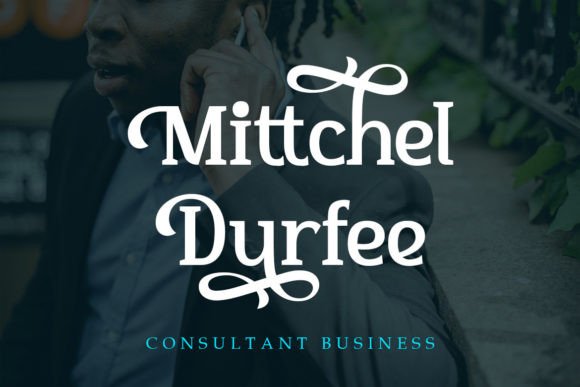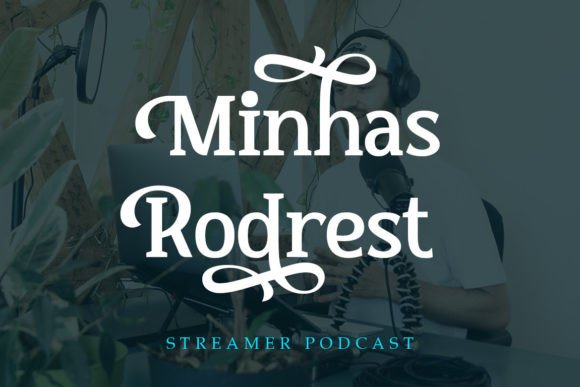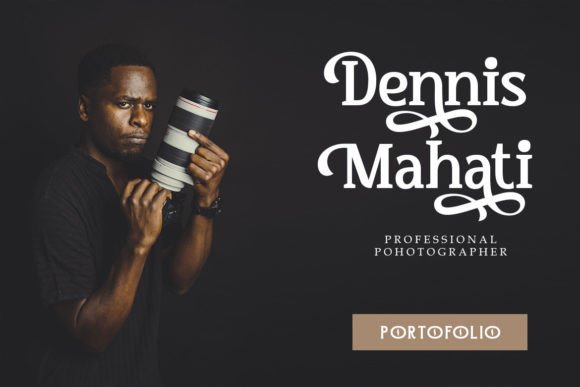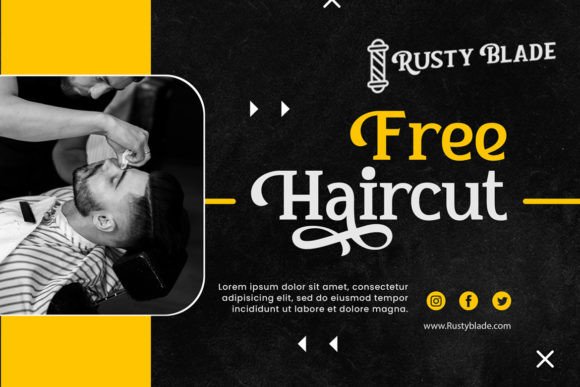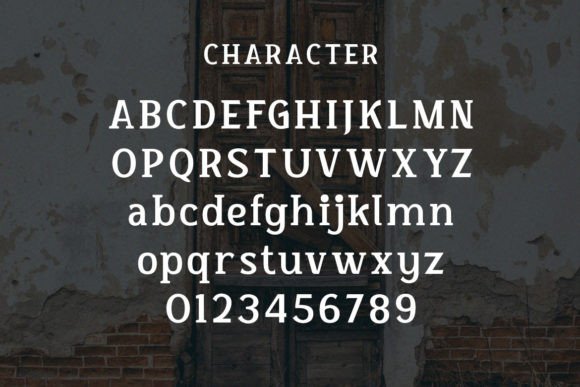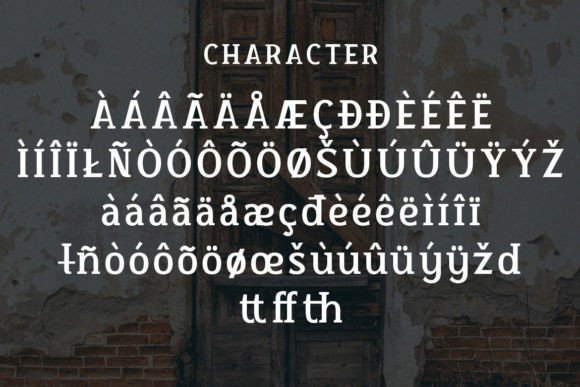
Introduction to Rubish Font
Have you ever been working on a creative project, pouring your heart and soul into every detail, only to be stuck on finding the perfect font to bring it all together? It’s a moment we’ve all experienced at some point, and it’s frustrating to say the least. But what if I told you that there’s a font that could solve that problem for you? Enter the elegant and rounded slab serif typeface, Rubish Font.
This high-quality design resource is perfect for a variety of contexts, from designing labels for perfumes and cosmetics to creating magazine covers, posters, manifests, and flyers. Its versatility and sophistication make it a valuable asset for any designer looking to elevate their creative project.
Key Features of Rubish Font
- High-quality design resource ideal for creative projects, including logos, graphics, and more.
- Unique, playful font style with a transparent background, allowing for versatility and customization.
- Includes a comprehensive set of characters, including uppercase and lowercase letters, numbers, and punctuation marks.
- Comes in a single weight, making it easy to use and integrate into your design workflow.
Honest Review: Rubish Font
As a designer, I’m always on the lookout for high quality design resources that can elevate my creative projects. I recently had the chance to test out the Rubish Font, and here’s my honest review.
- Rubish Font offers a unique and quirky aesthetic that can add a lot of personality to a design.
- The transparent background makes it easy to use in a variety of design applications.
- The Rubish Font may not be suitable for all design projects, particularly those that require a more professional or formal tone.
- The font may not be as versatile as some other design resources, making it more difficult to use in certain situations.
Overall, I was impressed with the Rubish Font’s unique style and ease of use. While it may have some limitations, it’s definitely a great resource to have in your design arsenal. If you’re looking for a fun and quirky font to add some personality to your design, the Rubish Font is definitely worth checking out.
Introduction to Rubish Font
Rubish Font is a unique design resource ideal for creative projects. Its high quality and transparent background make it a versatile tool for designers and artists.
Tips for Getting the Most Out of Rubish Font
To get the most out of Rubish Font, experiment with different font sizes, colors, and styles. Use it in combination with other design elements to create unique and eye-catching visual effects.
Common Use Cases for Rubish Font
Rubish Font is ideal for creative projects such as:
- Typography-based art
Alternatives to Rubish Font
Comic Sans MS is a fun, high-quality font that can add a touch of whimsy to any creative project. It’s perfect for designing posters, flyers, and other visual materials where a playful tone is desired. When to use: Casual designs, children’s materials, and informal communications. How it compares to Rubish Font: While both fonts are casual, Comic Sans MS is more elegant and sophisticated.
Arial Black
Arial Black is a versatile, high-quality font that’s great for headings and titles. Its bold, modern design makes it perfect for use in creative projects where a strong visual impact is needed. When to use: Brochures, magazines, and other publications where a clear, bold font is required. How it compares to Rubish Font: Unlike Rubish Font, Arial Black is professional and easy to read.
Impact
Impact is a classic, high-quality font that’s perfect for use in creative projects where a bold, attention-grabbing design is desired. Its transparent background makes it easy to use on top of images and other design elements. When to use: Posters, flyers, and other visual materials where a bold, eye-catching font is needed. How it compares to Rubish Font: While both fonts are bold, Impact is more elegant and refined.